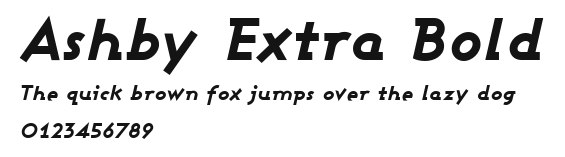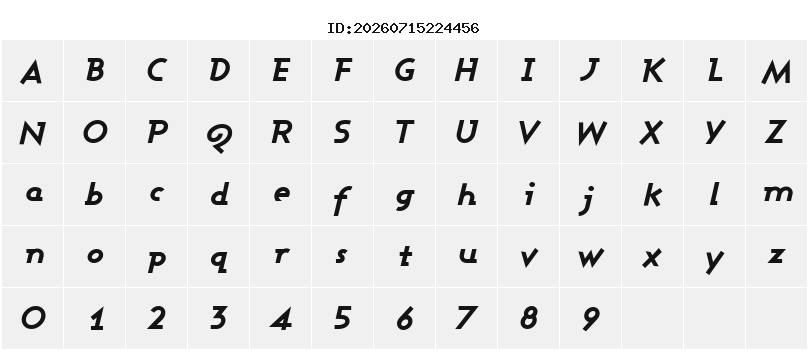
Ashby Extra Bold Preview
• Font Name: Ashby Extra Bold
• Font ID: RobbyWoodard: Ashby Extra Bold Italic: 2001
• Full Font Name: Ashby Extra Bold Italic
• PostScript Name: AshbyExtraBold-Italic
About Ashby Extra Bold.ttf
Ashby Extra Bold.ttf is a modern, elegant sans-serif font designed for ultimate readability and visual harmony. Perfect for branding, headlines, web design, and print materials.